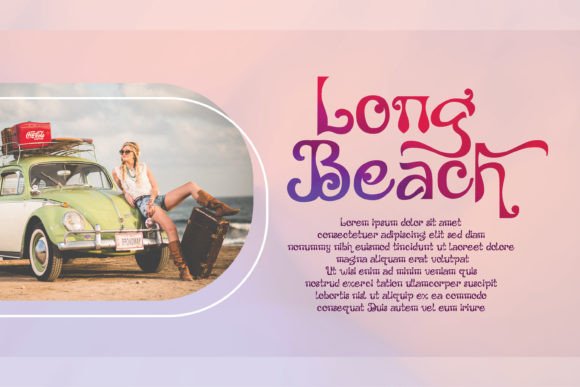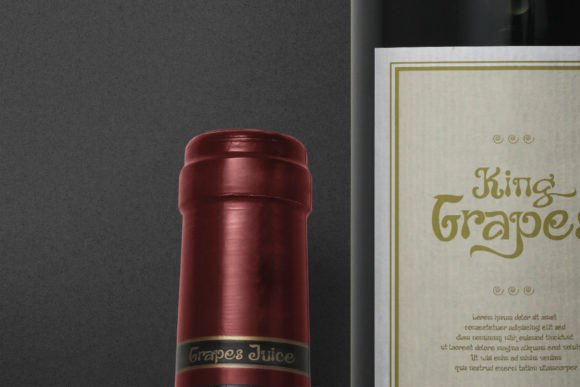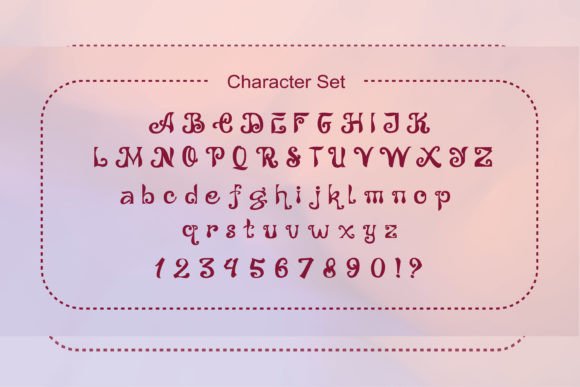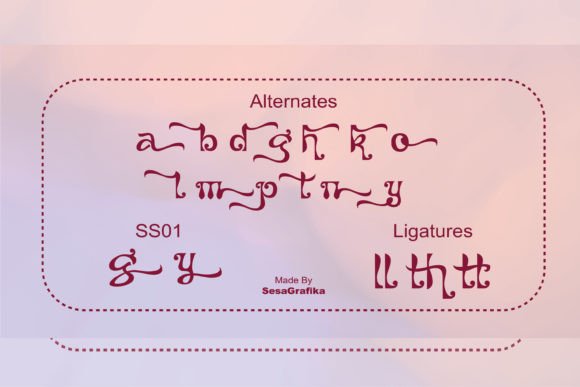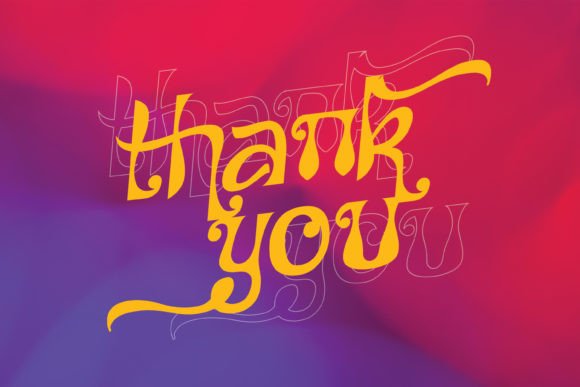
Discover the Charm of Anazura Font: A Vintage Script Font for Modern Designs
In the world of typography, fonts play a crucial role in conveying the tone and personality of a brand. For designers and crafters looking for a unique and eye-catching font, Anazura Font is an excellent choice. This vintage font boasts a distinctive style that is both clean and quirky, making it perfect for a wide range of design projects.
What is Anazura Font?
Anazura Font is a retro-styled script font that exudes a sense of nostalgia and sophistication. Its unique style is characterized by elegant lines, subtle curves, and a touch of playfulness. This font is ideal for designers who want to add a vintage flair to their designs without compromising on readability.
Key Features of Anazura Font
- PUA Encoded: Anazura Font is PUA (Private Use Area) encoded, which means that you can access all the glyphs and swashes with ease. This feature makes it simple to customize your designs and add a personal touch.
- Clean and Quirky: The font’s clean lines and quirky style make it perfect for a wide range of design projects, from logos and branding to social media graphics and apparel.
- Retro-Styled: Anazura Font’s vintage style is reminiscent of classic typography, making it an excellent choice for designers who want to create designs that are both modern and nostalgic.
- Versatile: This font is suitable for various design projects, including logos, branding, social media graphics, apparel, and more.
Uses of Anazura Font
Anazura Font is a versatile font that can be used for a wide range of design projects. Here are some ideas to get you started:
- Logos and Branding: Create a unique and memorable logo for your business or brand with Anazura Font.
- Social Media Graphics: Use Anazura Font to create eye-catching social media graphics, including Facebook posts, Instagram stories, and Twitter headers.
- Apparel: Add a touch of vintage style to your apparel designs, including t-shirts, mugs, and tote bags.
- Stationery: Use Anazura Font to create beautiful stationery, including business cards, letterheads, and invoices.
Benefits of Using Anazura Font
Anazura Font offers several benefits to designers and crafters, including:
- Unique Style: Anazura Font’s distinctive style sets it apart from other fonts, making it an excellent choice for designers who want to create unique designs.
- Ease of Use: The font’s PUA encoding makes it easy to access all the glyphs and swashes, saving you time and effort.
- Versatility: Anazura Font can be used for a wide range of design projects, making it a valuable addition to your font library.
- High-Quality: The font is designed to high standards, ensuring that your designs look professional and polished.
Anazura Font is a unique and versatile vintage script font that is perfect for designers and crafters looking for a distinctive style. Its clean lines, quirky style, and PUA encoding make it an excellent choice for a wide range of design projects. Whether you’re creating logos, branding, social media graphics, or apparel, Anazura Font is sure to add a touch of elegance and sophistication to your designs.